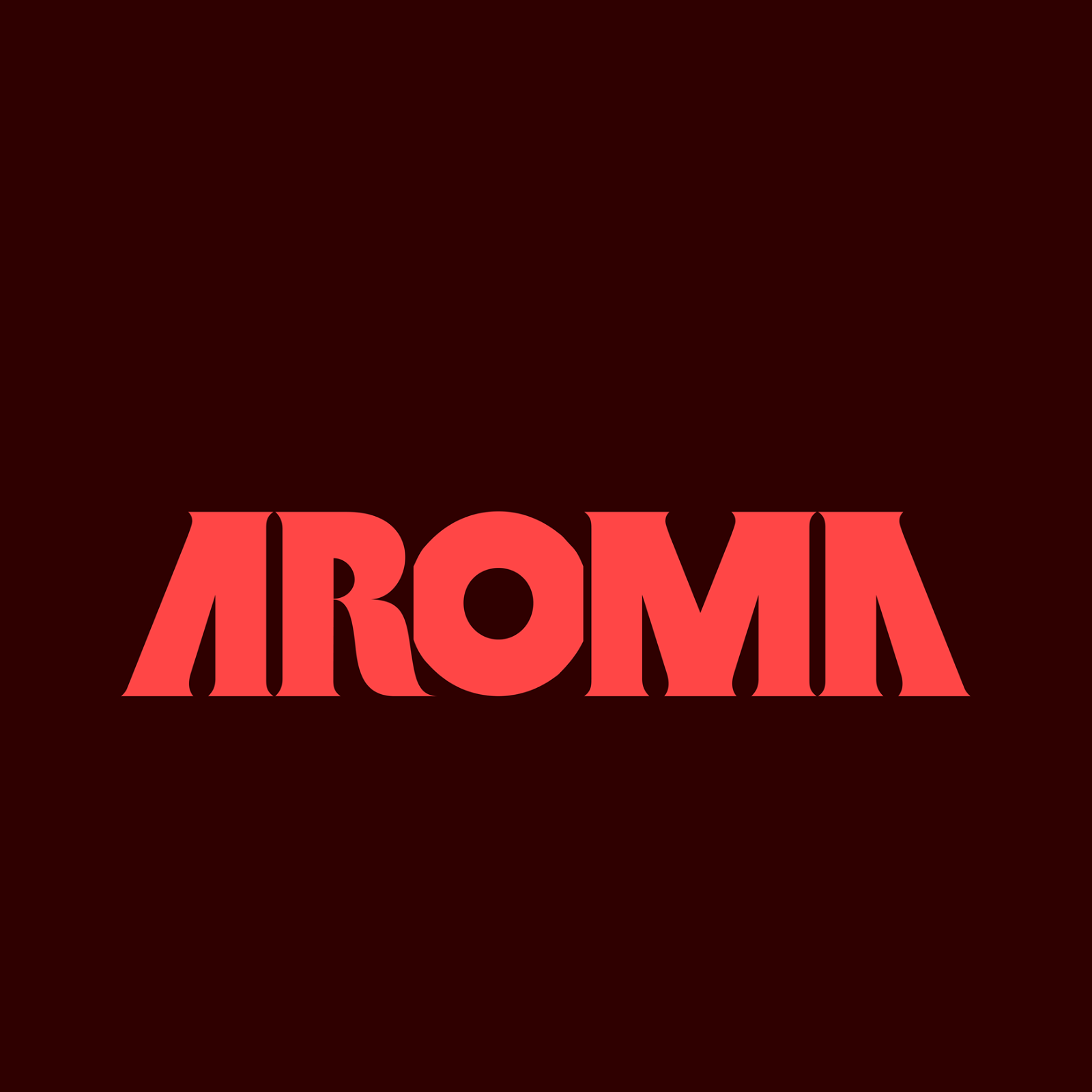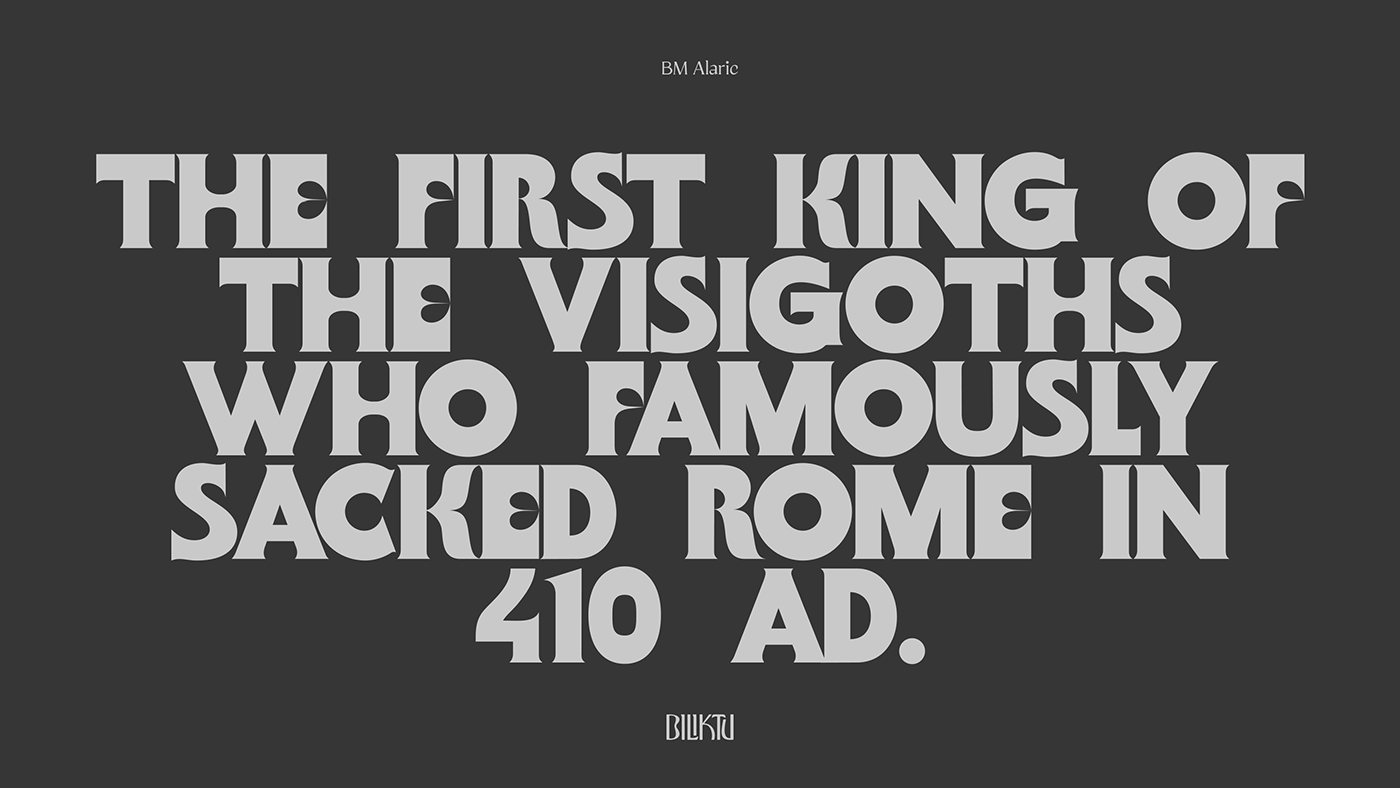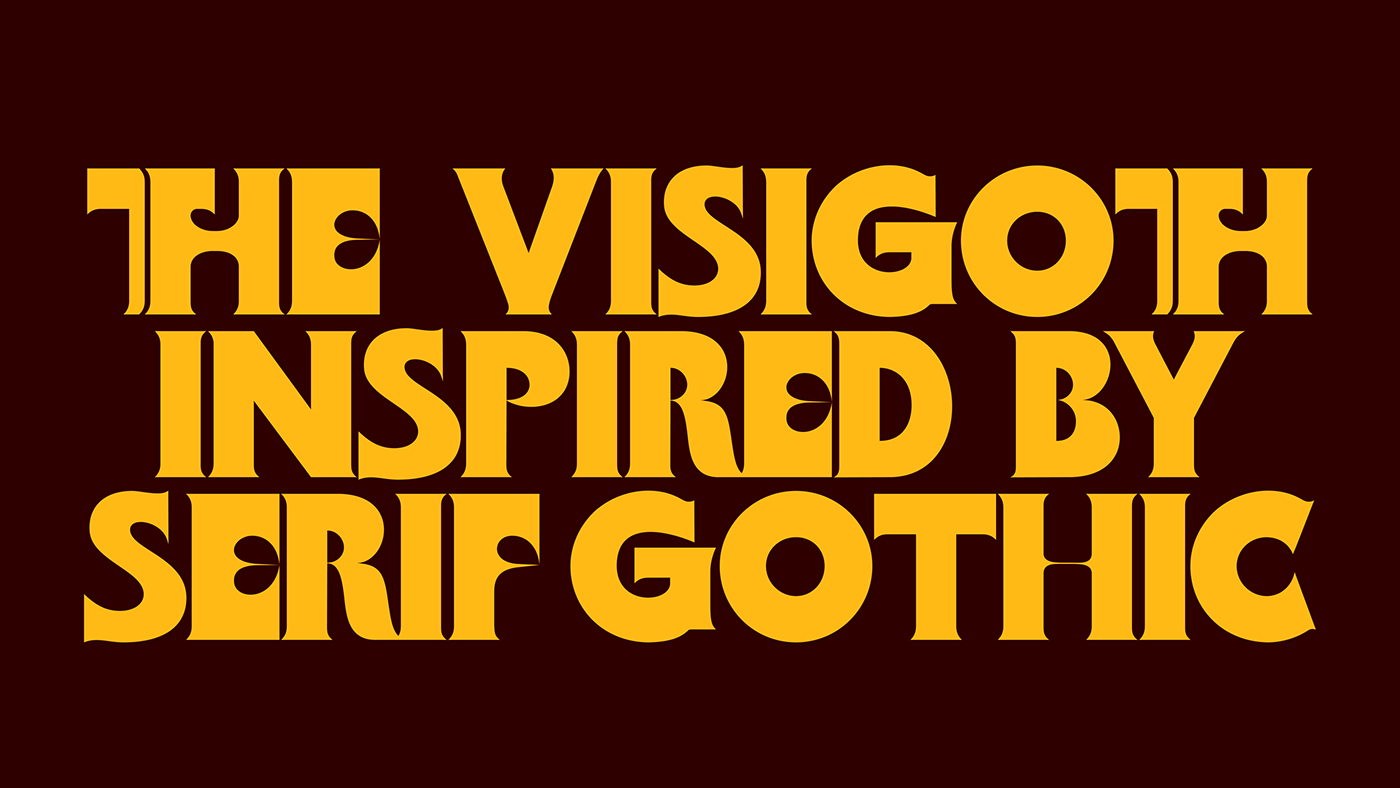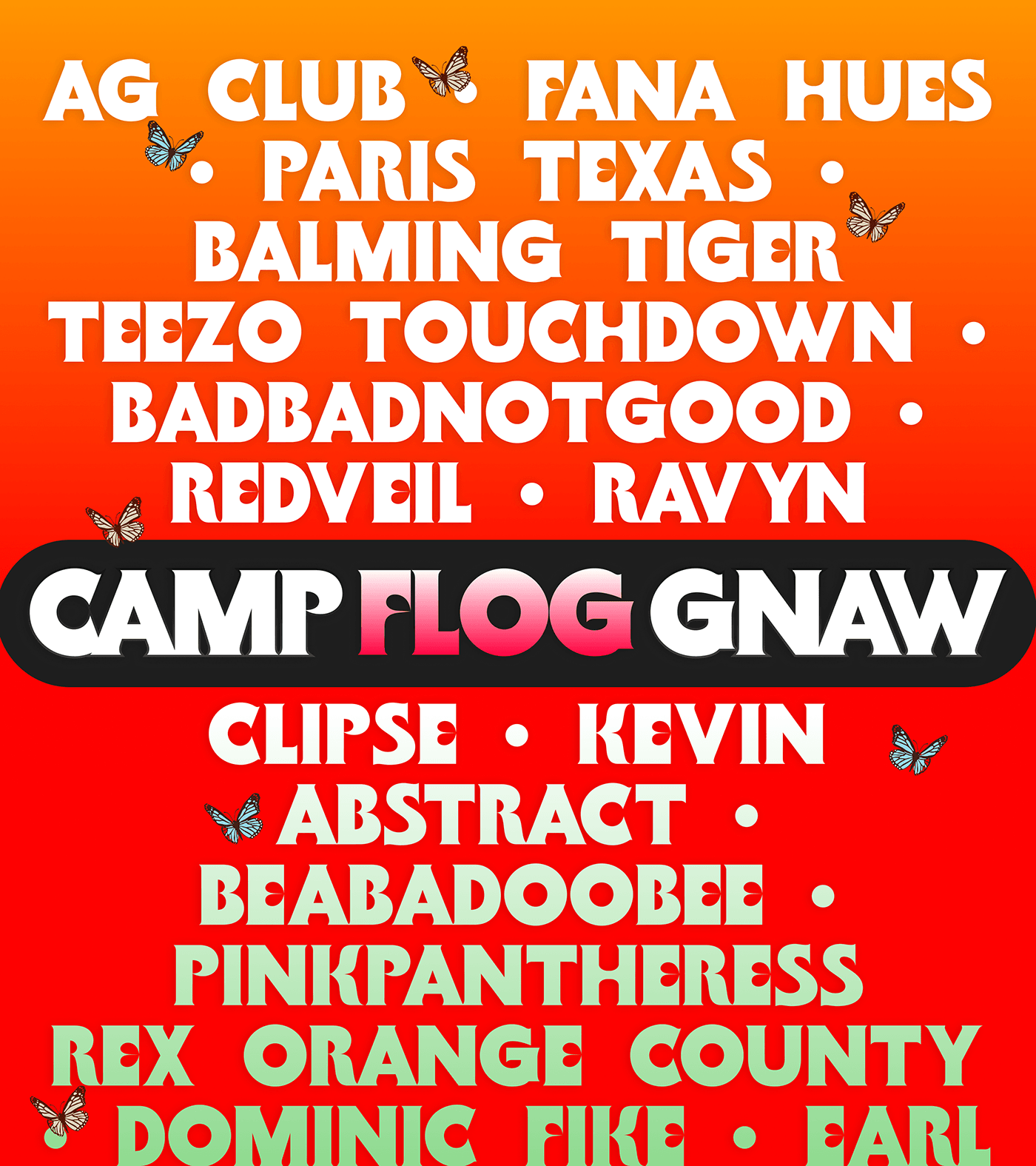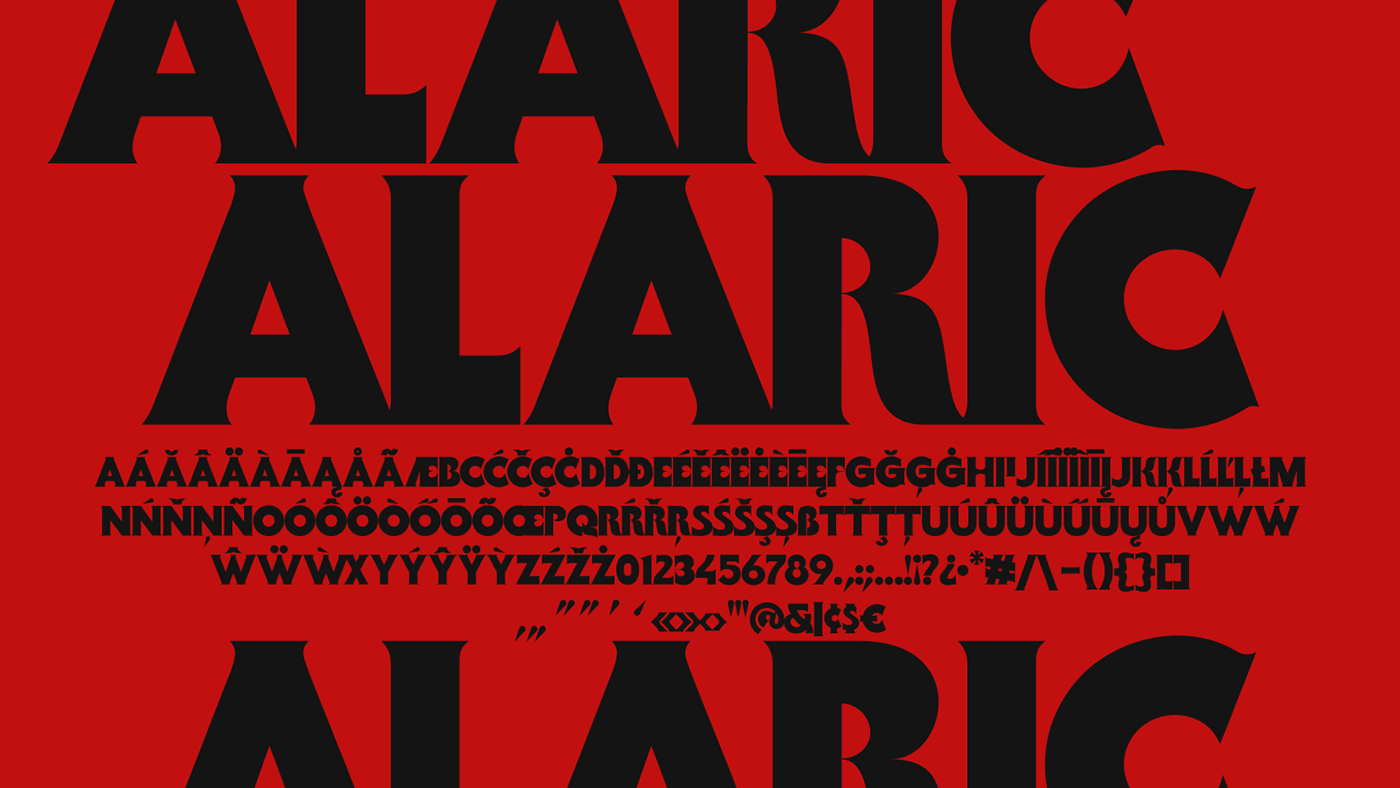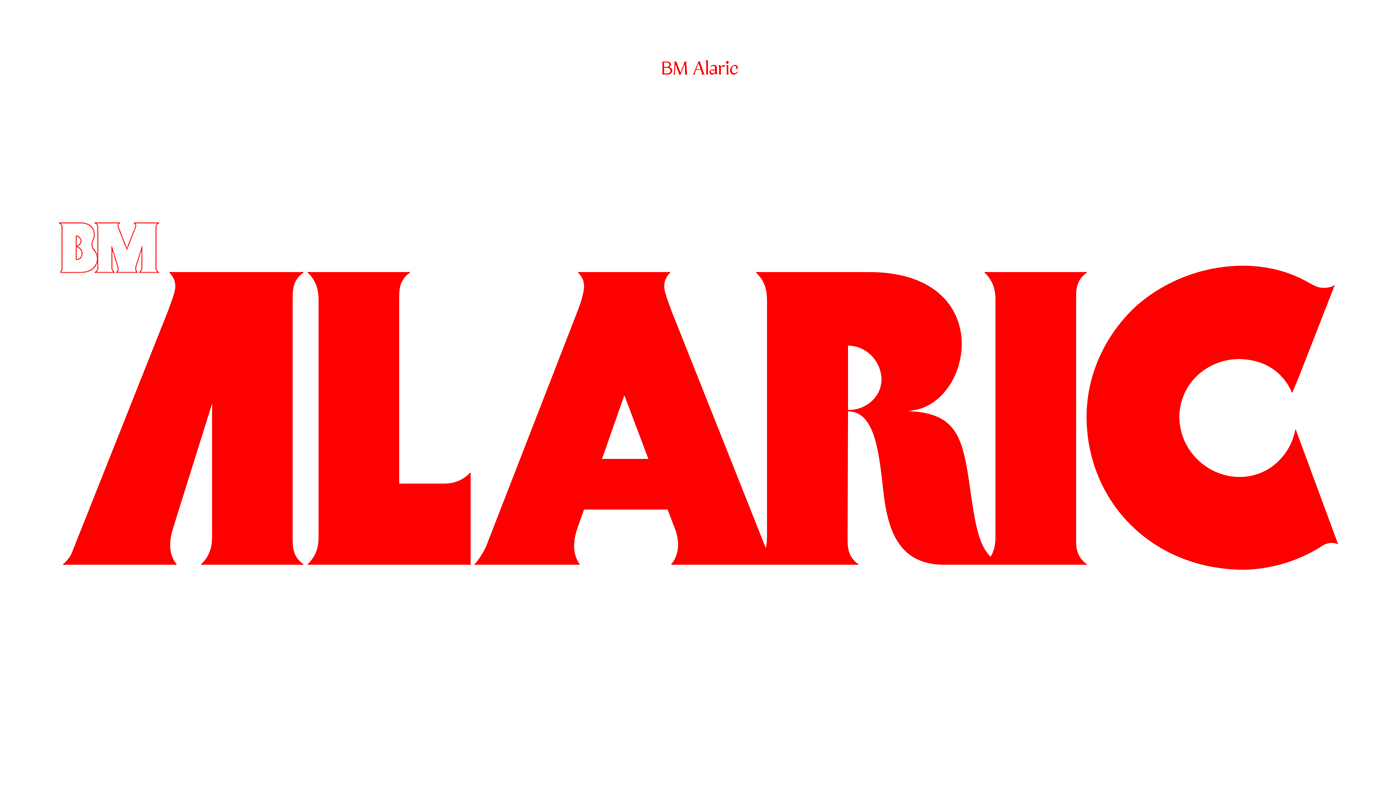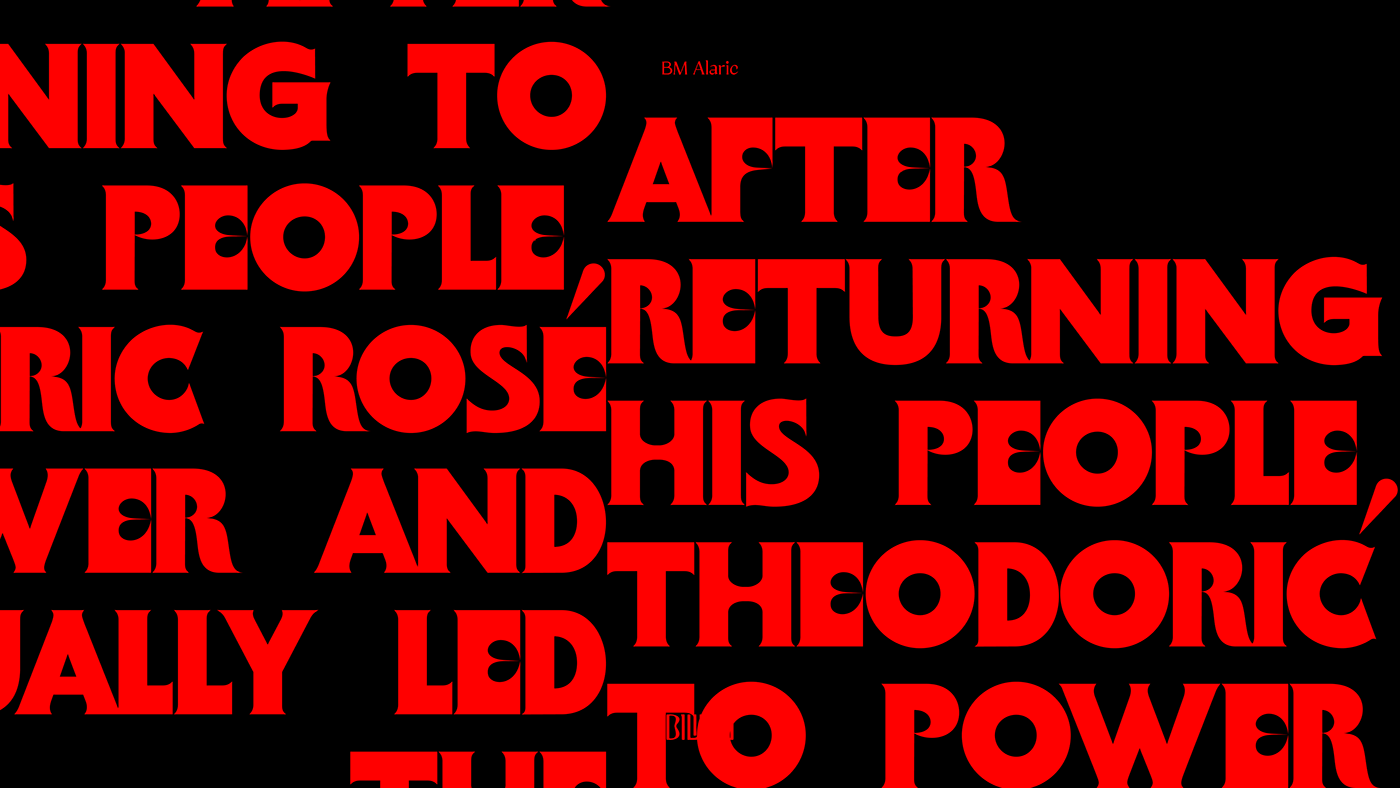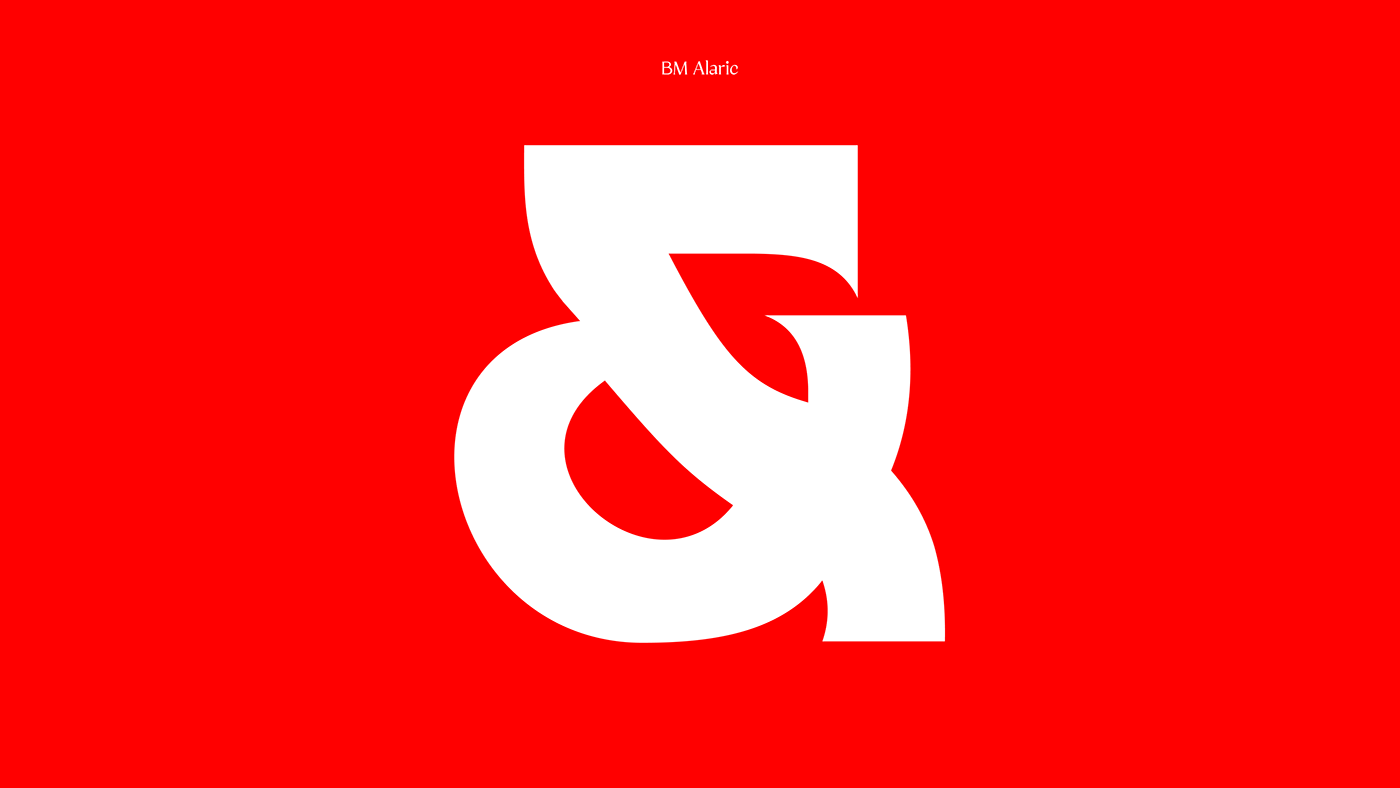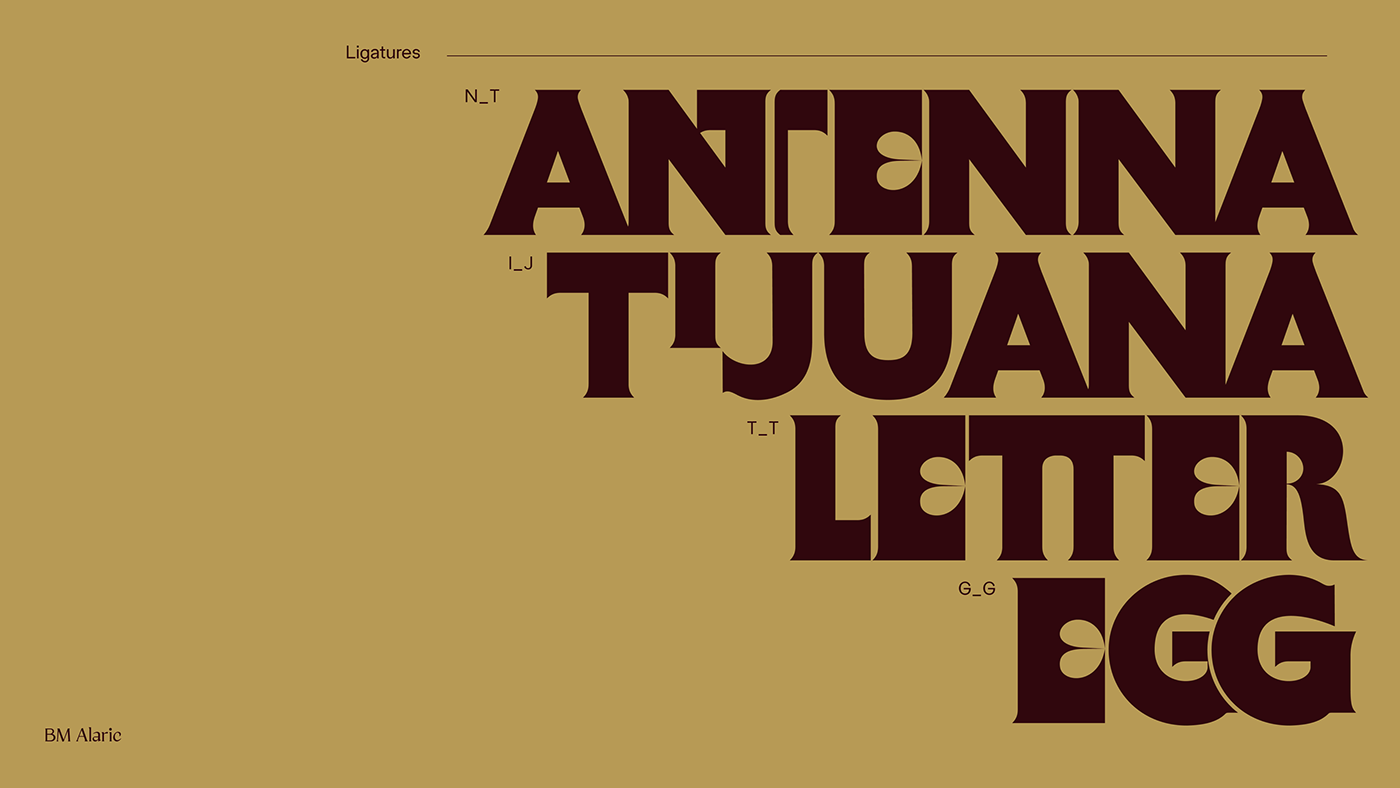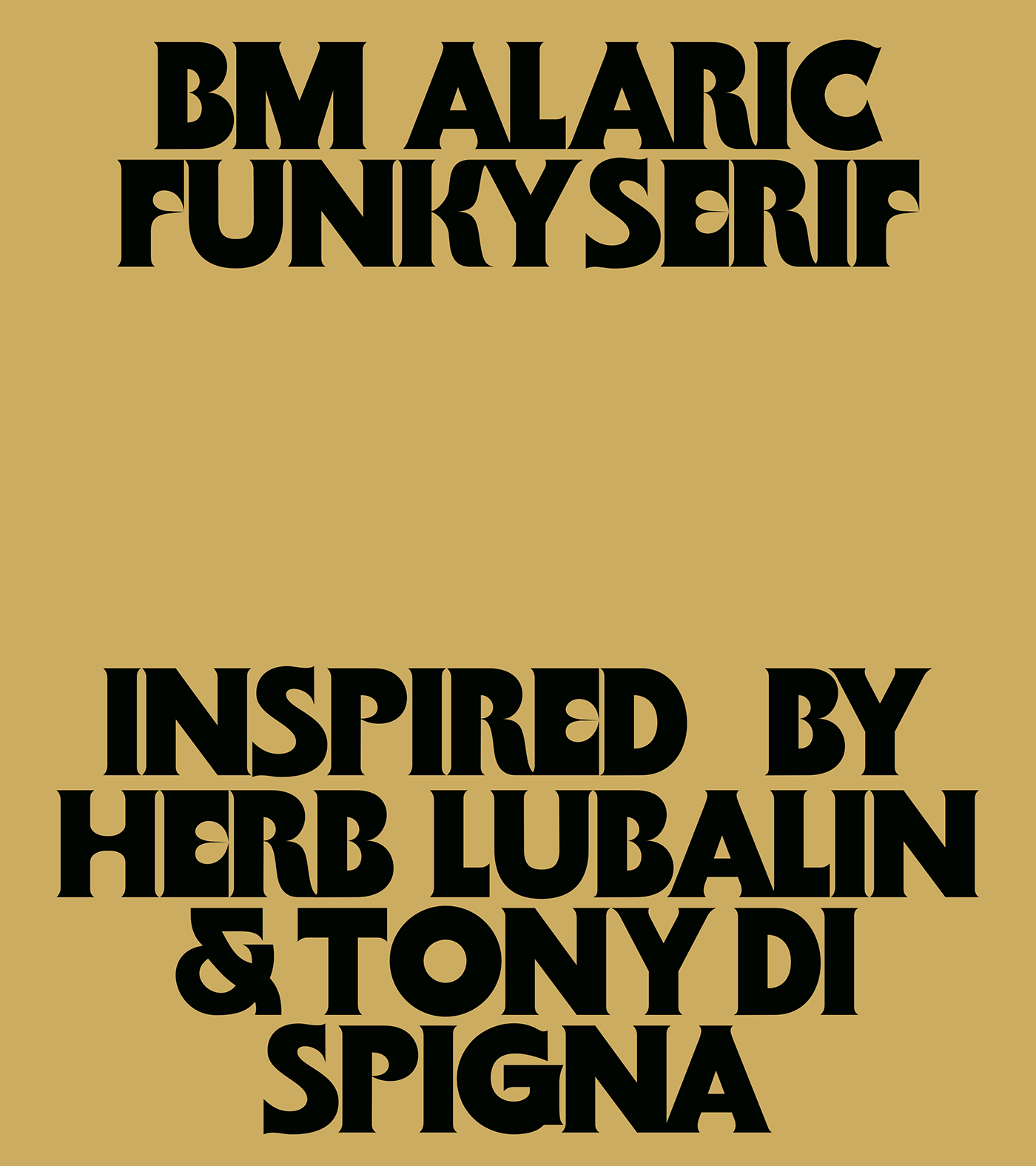
BM Alaric: Elevating Typography and Font Design with a Funky Serif Twist
Discover BM Alaric, a funky serif typeface blending elegance and playfulness. Perfect for branding and creative projects.
In the ever-evolving world of typography and font design, BM Alaric stands out as a distinctive typeface that masterfully blends historical elegance with modern playfulness. Designed by Murathan Biliktü, this funky Visigothic serif font takes inspiration from the iconic work of Herb Lubalin and Tony Di Spigna, offering a fresh twist on classic serif design.
BM Alaric is a vibrant typeface that captures the essence of Biliktü Foundry’s unique style. It features alternative characters and rare ligatures, making it an excellent choice for creative projects that demand a unique and engaging aesthetic. Whether you’re branding a music artist, designing a café menu, or crafting product packaging, BM Alaric brings a touch of historical grandeur infused with contemporary flair.
The font’s design pays homage to the grandeur of historical events, likening its impact to that of Nero watching Rome burn or Alaric’s conquest of the city. This historical reference underscores the typeface’s ability to make a bold statement and capture attention.
BM Alaric's versatility makes it suitable for various applications. Its playful yet elegant design is perfect for creative industries looking to stand out. The font’s unique ligatures and alternative characters offer endless possibilities for customization, ensuring that each design feels fresh and original.
Moreover, BM Alaric’s funky serif design is not just about aesthetics; it’s about creating a memorable visual identity. Typography plays a crucial role in branding, and choosing the right font can significantly impact how a brand is perceived. BM Alaric’s distinctive style helps brands convey a sense of creativity, sophistication, and innovation.